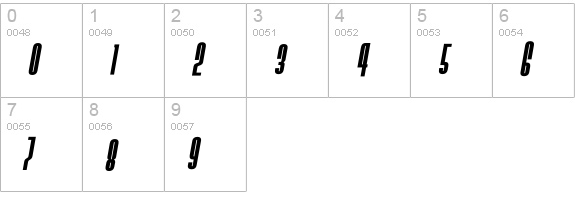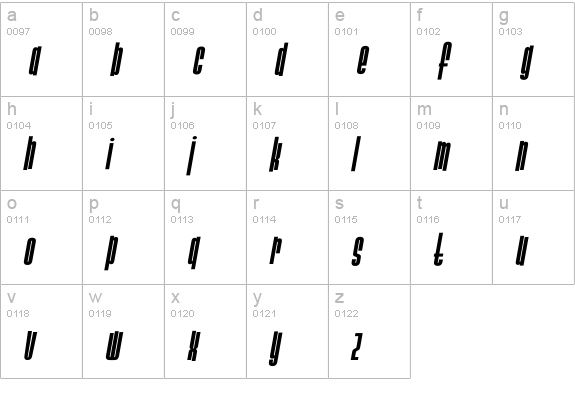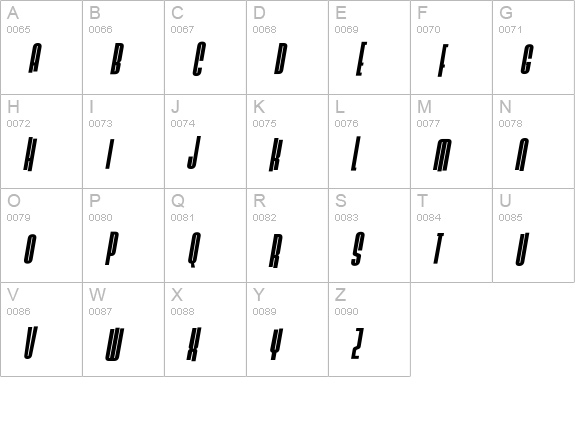
SlackCasual-BoldItalic Font Details
SlackCasual-BoldItalic is a modern and stylish font that exudes a casual yet bold vibe. With its unique italicized design, this font adds a touch of sophistication to any project. Whether you're working on a logo, branding materials, or even a website, SlackCasual-BoldItalic is the perfect choice to make a lasting impression. What sets this font apart is not only its trendy look but also the fact that it is available for free! That's right, you can freely download SlackCasual-BoldItalic at FontsMarket.com, making it accessible to everyone. Say goodbye to expensive font licenses and hello to creativity without boundaries. Designed with versatility in mind, SlackCasual-BoldItalic is suitable for a wide range of design projects. Its clean lines and well-defined curves create a seamless flow of letters, ensuring legibility even at smaller sizes. Whether you're using it for headlines, body text, or even display purposes, this font will effortlessly adapt to your needs. SlackCasual-BoldItalic is a true gem for designers and creatives who want to make a statement without compromising on style. With its modern and bold aesthetic, it adds a touch of personality to any design. So why wait? Head over to FontsMarket.com and grab your free download of SlackCasual-BoldItalic today! Unleash your creativity and take your designs to the next level with this amazing font.